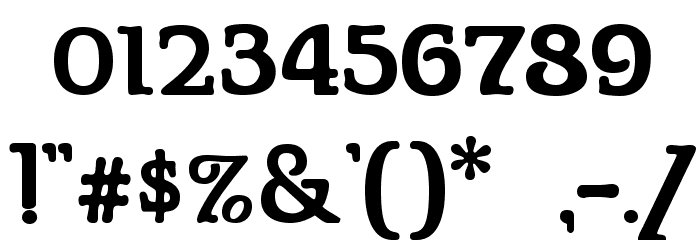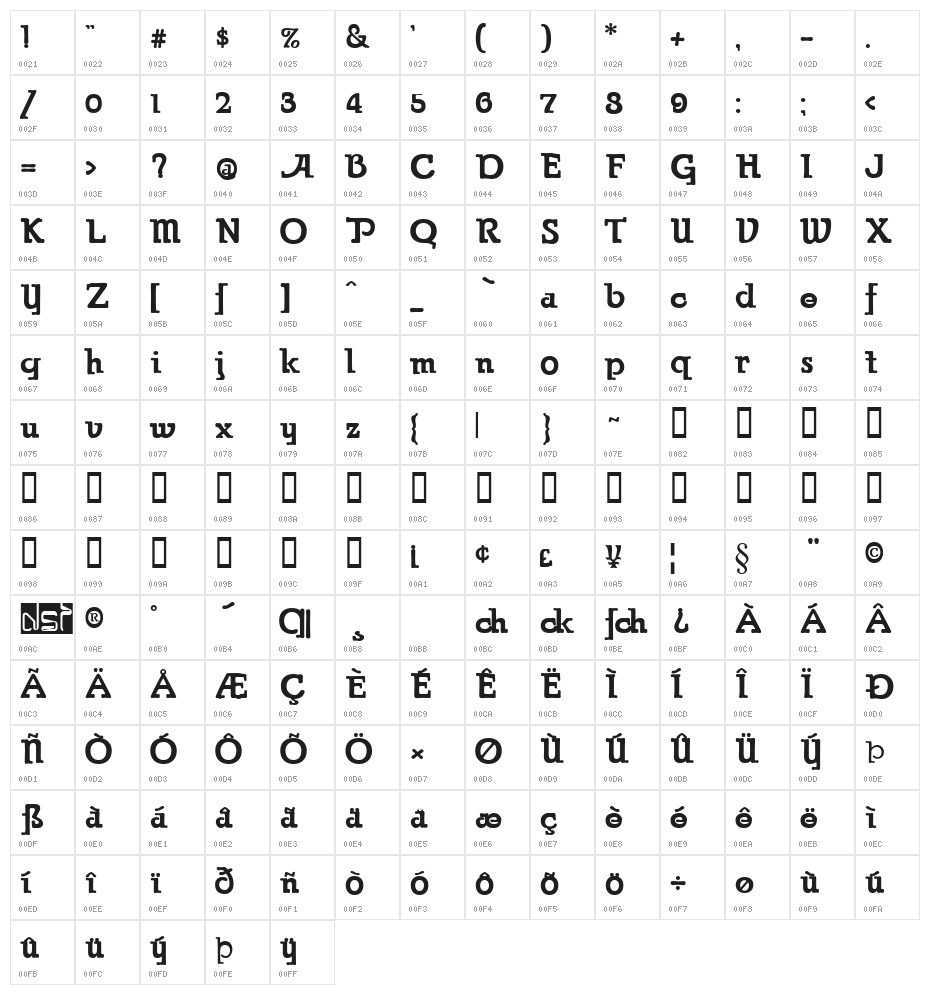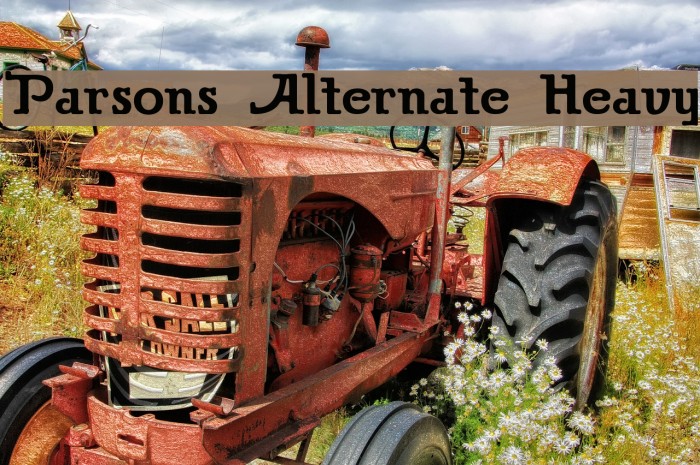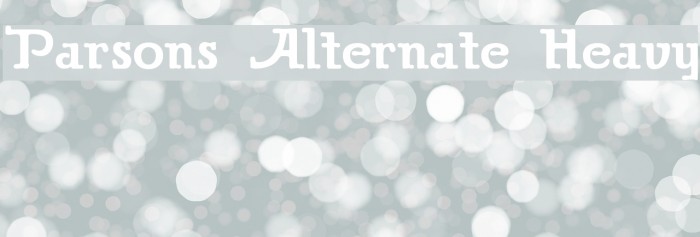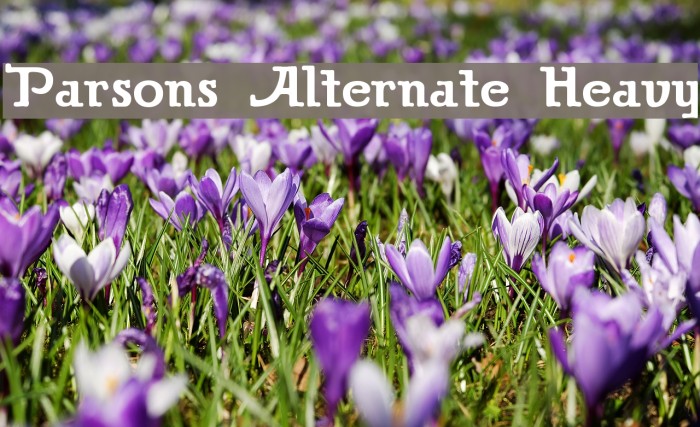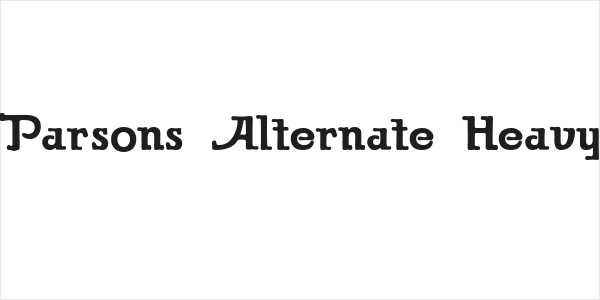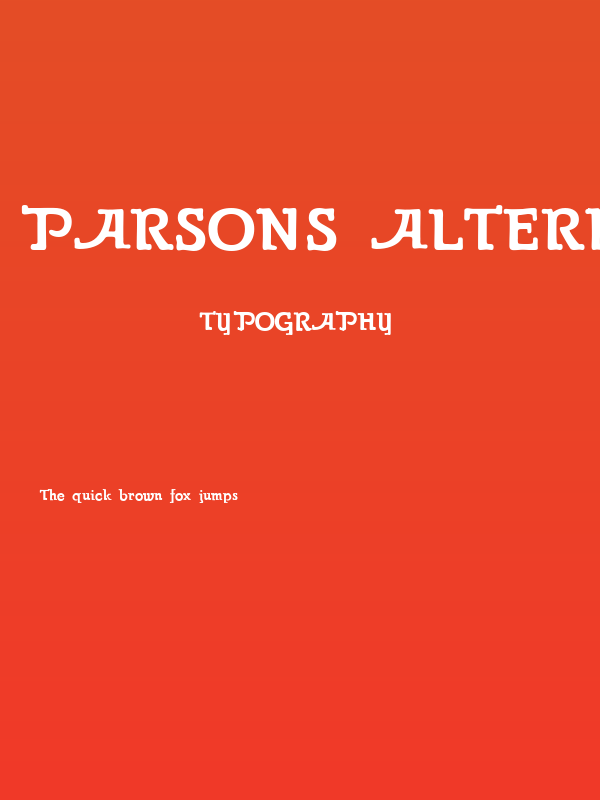
Parsons Alternate Heavy Font
Parsons Alternate Heavy Description
This font features a bold and heavy style with a distinctive, vintage flair. The characters exhibit a unique blend of rounded and angular elements, creating a playful yet sophisticated appearance. The uppercase letters are particularly striking, with their pronounced curves and strong presence. The lowercase letters maintain a consistent style, complementing the uppercase with their rounded forms and slight variations in stroke thickness. The numerals are bold and clear, ensuring readability. Special characters are designed with the same attention to detail, making them cohesive with the overall style. This font's heavy weight and unique character shapes make it ideal for projects that require a strong visual impact.
| Proposed Projects | Ideal for branding, poster design, headlines, and any project requiring a vintage or retro aesthetic. |